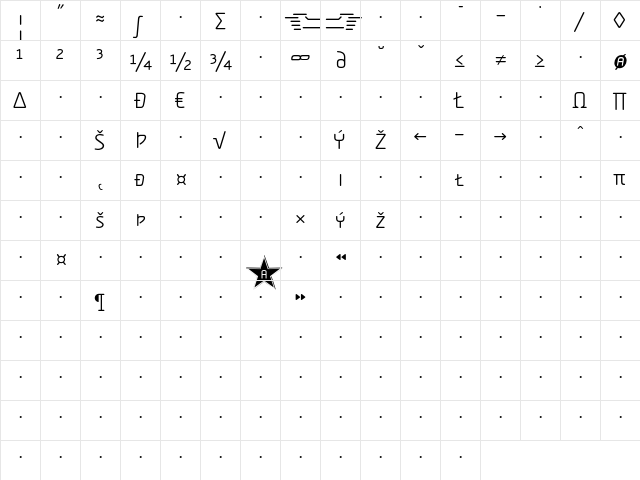
Alega-LightSmallCapsExpert Regular
| Foundry | Siegfried Rueckel, published by FontShop International for the FontFont library |
Design Context for Alega-LightSmallCapsExpert Typeface
Alega-LightSmallCapsExpert is a composed and adaptable typeface that performs quietly and consistently across a wide range of design contexts. The delicate stroke weight brings airiness and refinement to layouts.